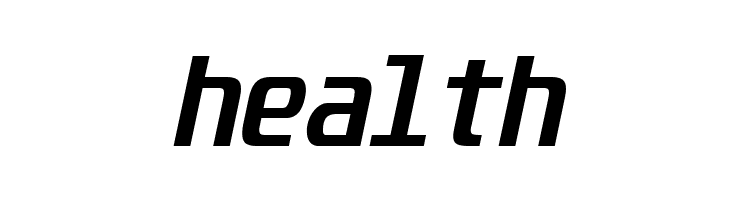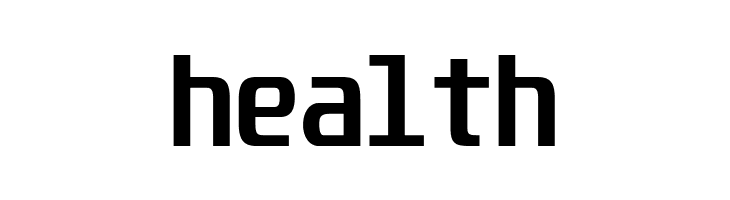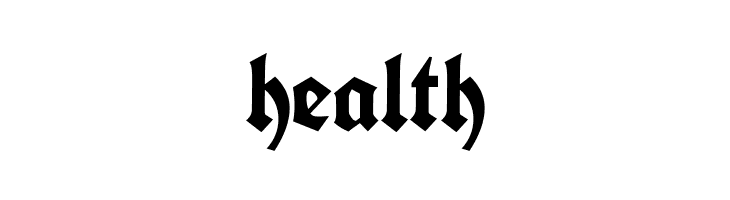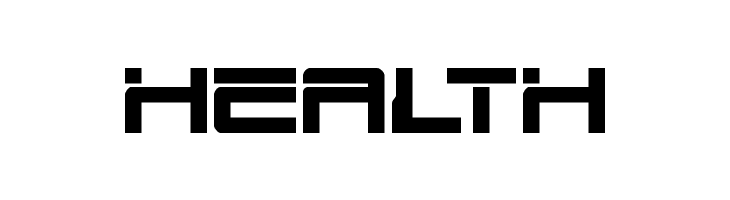
A bold Blackletter font with sharp, angular lines and a medieval aesthetic.
A bold, modern font with tall, narrow characters and a sleek design.
A bold, modern font with tall, narrow characters and consistent stroke width.
A bold, geometric font with a modern and technical style.
A bold, modern, and geometric monospaced font with uniform stroke width.
A bold, italicized geometric font with a futuristic style.
A bold, italic sans-serif font with a modern and dynamic style.
A bold, futuristic font with geometric and angular design.